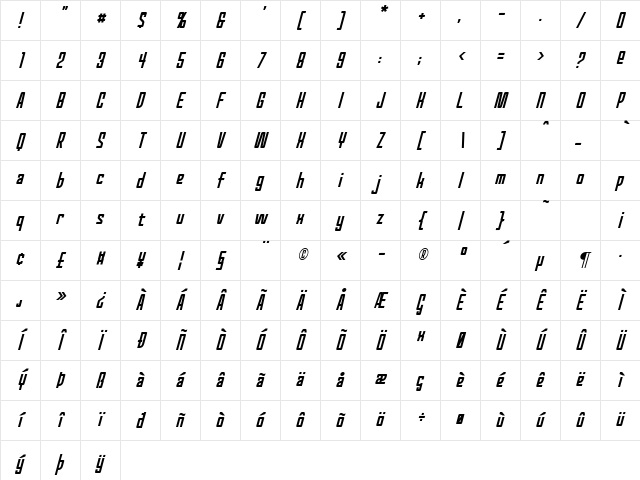
Red World is a composed and adaptable typeface that performs quietly and consistently across a wide range of design contexts. The slanted form adds forward momentum and visual energy.